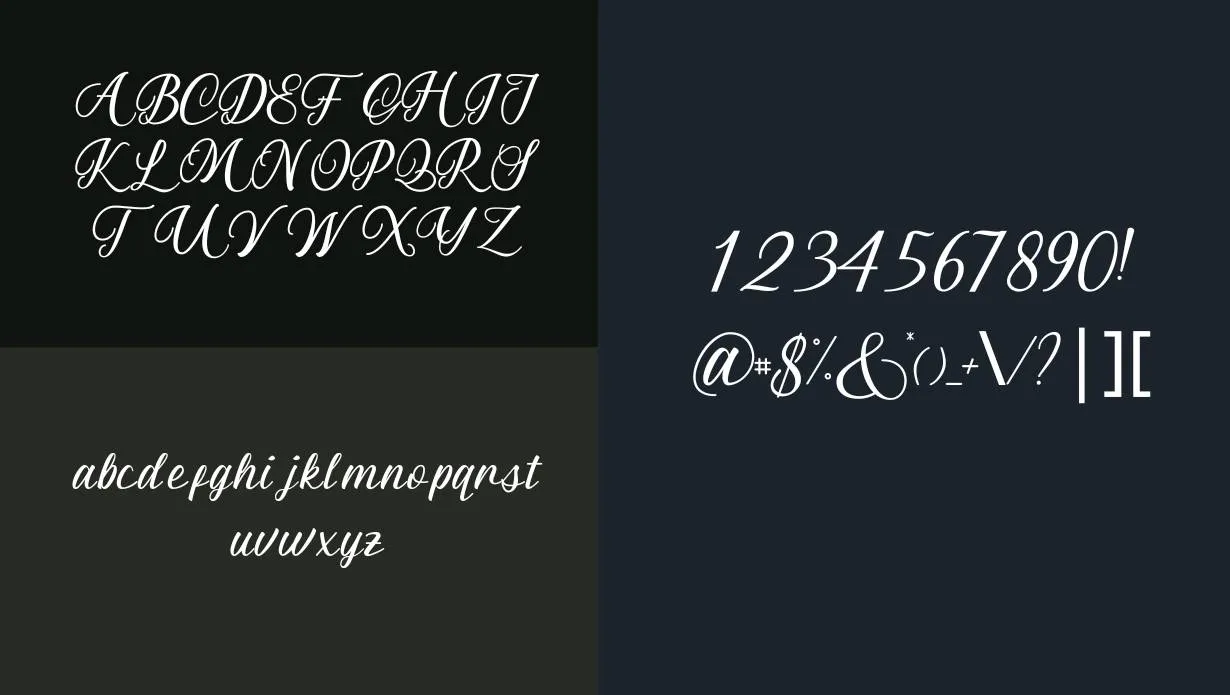
The Almyra Font is a modern and unique typeface suitable for contemporary designs, such as tech-related content, modern branding, or futuristic themes.
In Adobe Photoshop, this font can be used to create sleek and modern text for tech company logos or product advertisements. When applied through CSS, it gives a futuristic and cutting-edge appearance to web content, making it perfect for tech blogs or modern websites.
Canva users often favor this font for designing sleek social media graphics, tech event promotions, or modern brand visuals, imparting a sense of innovation and modernity.